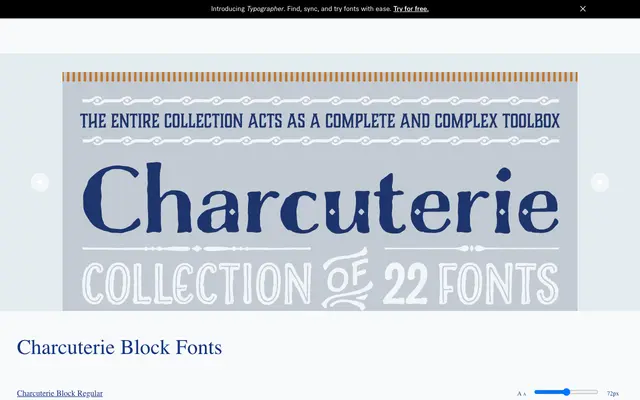
Charcuterie
A ten-typeface display collection with matching ornaments, built for mixing across headlines, packaging, signage and logo work.
Spanning block, serif, sans, cursive, flared, deco and engraved styles, the family is designed to be used in combination as much as individually. Swash alternates number in the hundreds across individual subfamilies, and the Design Elements subset adds catchwords, frames and over 100 ornamental glyphs. The collection suits a craft or artisanal visual register without being tied to a single historical reference.
A large multi-style display collection spanning block, serif, sans, cursive, engraved and deco styles alongside ornamental elements, all designed for headline and titling use rather than extended text.